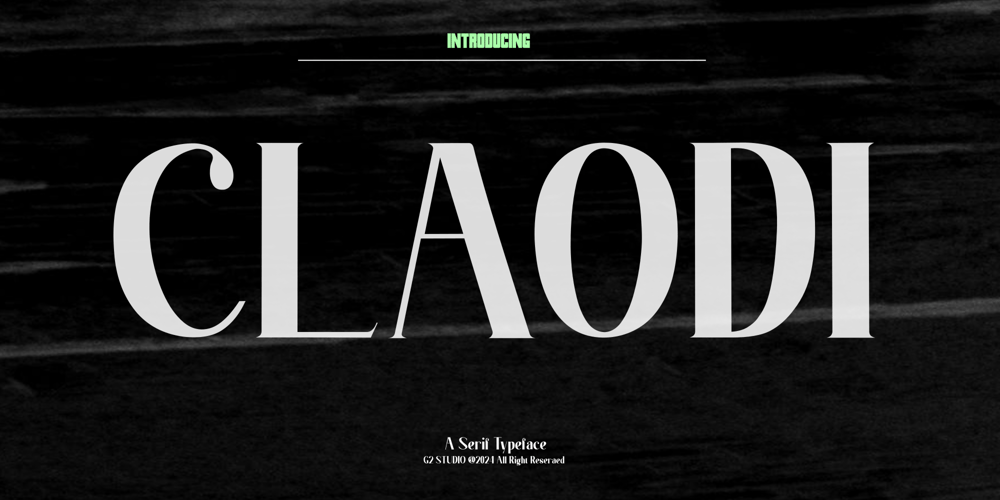
Claodi
Claodi font
Claodi Font Family was designed by Eka Setiono and published by G2 Studio. Claodi contains 1 styles and family package options. Cloudi – Elegant and Modern Serif FontCloudi is a serif font with an elegant and modern design, perfect for branding, logos, and editorial designs. Offering a balance of classic sophistication and high readability, Cloudi gives a professional and luxurious impression.